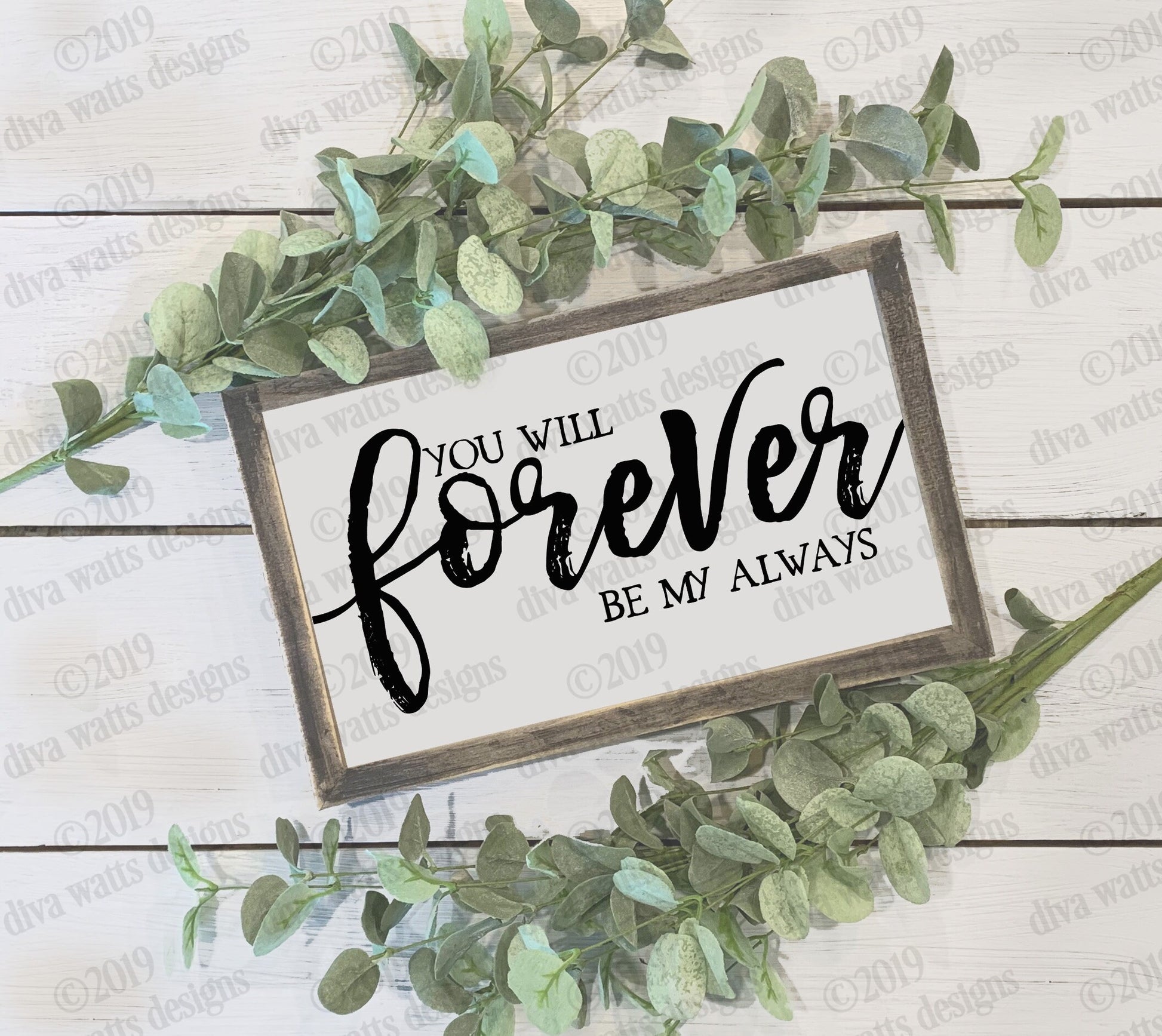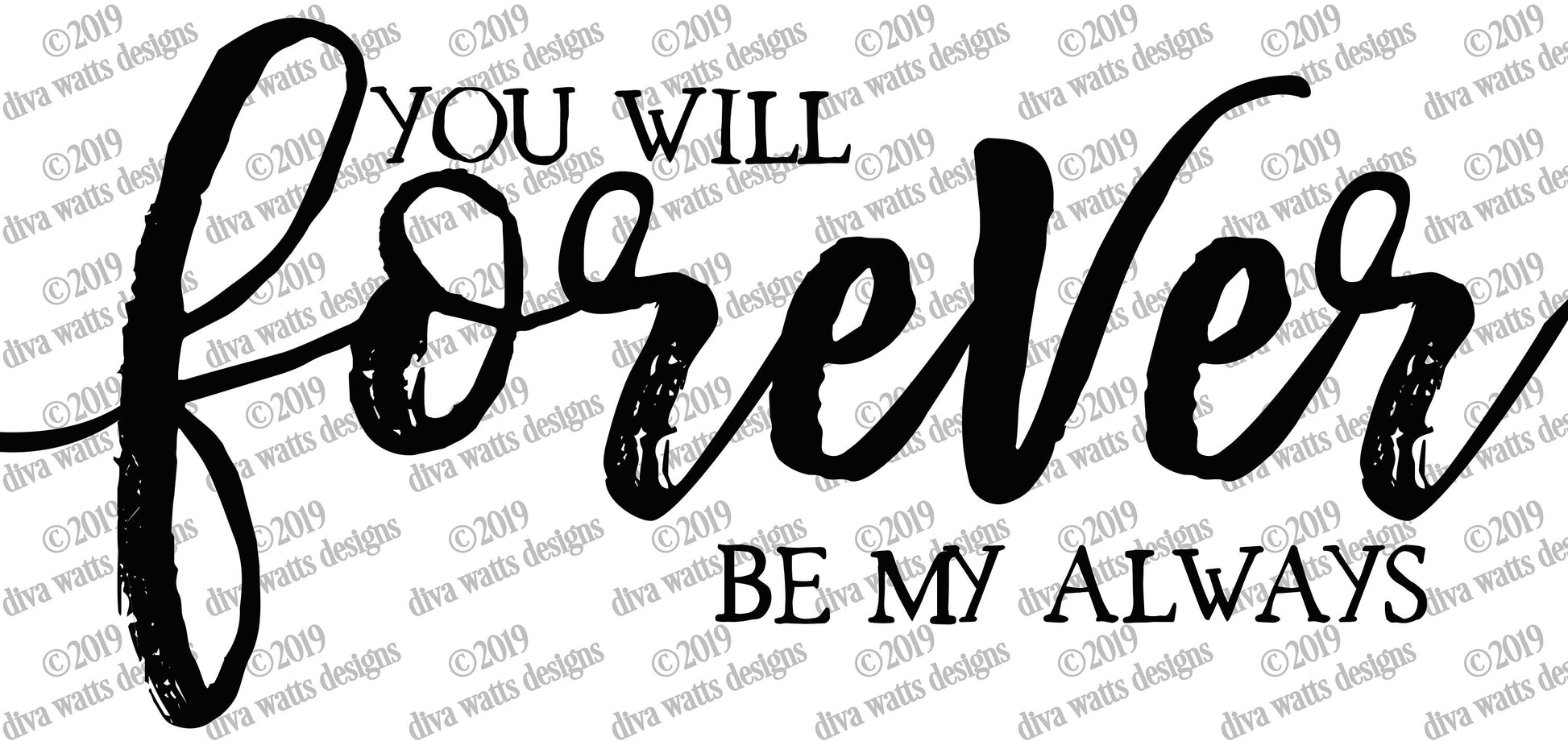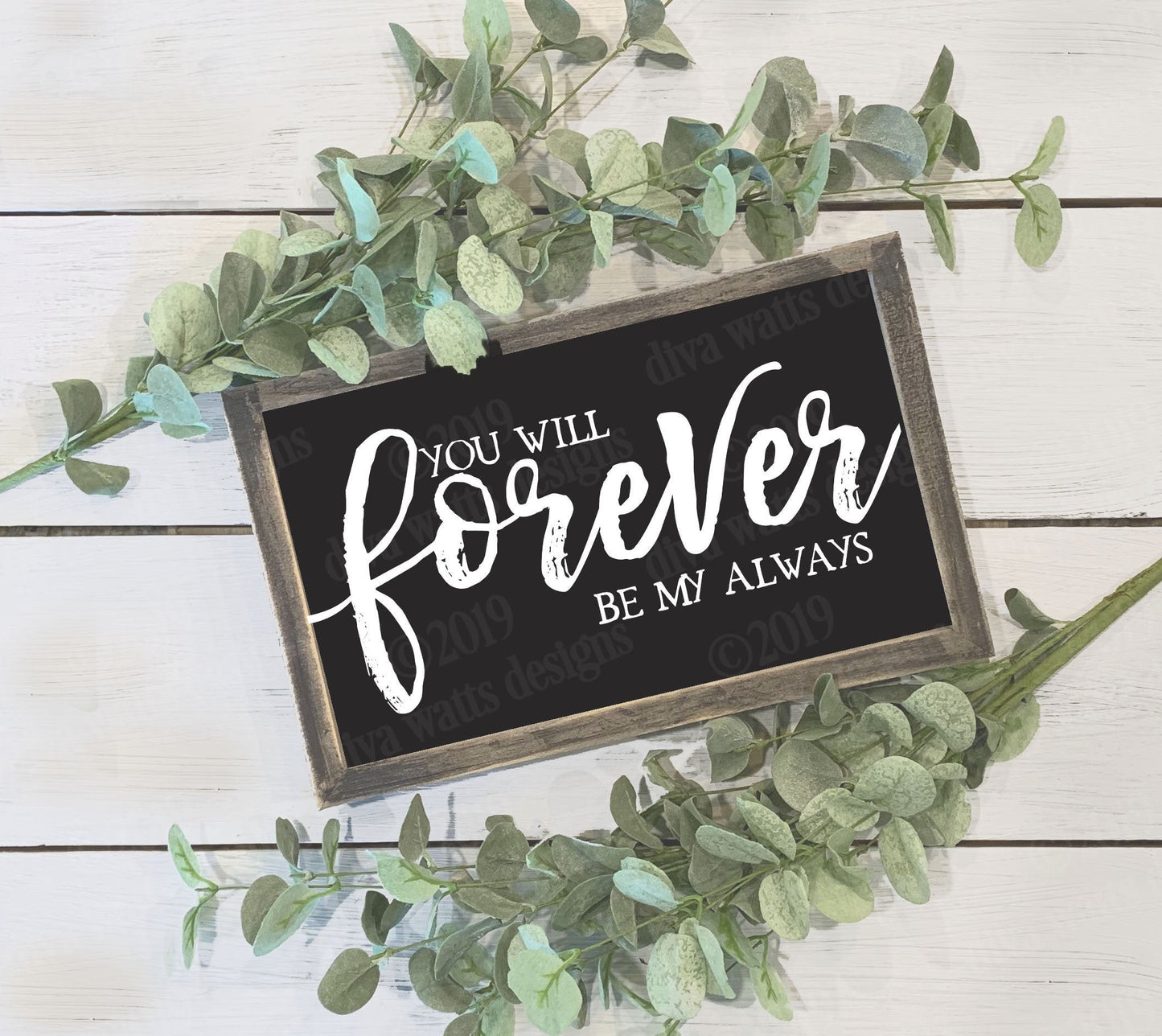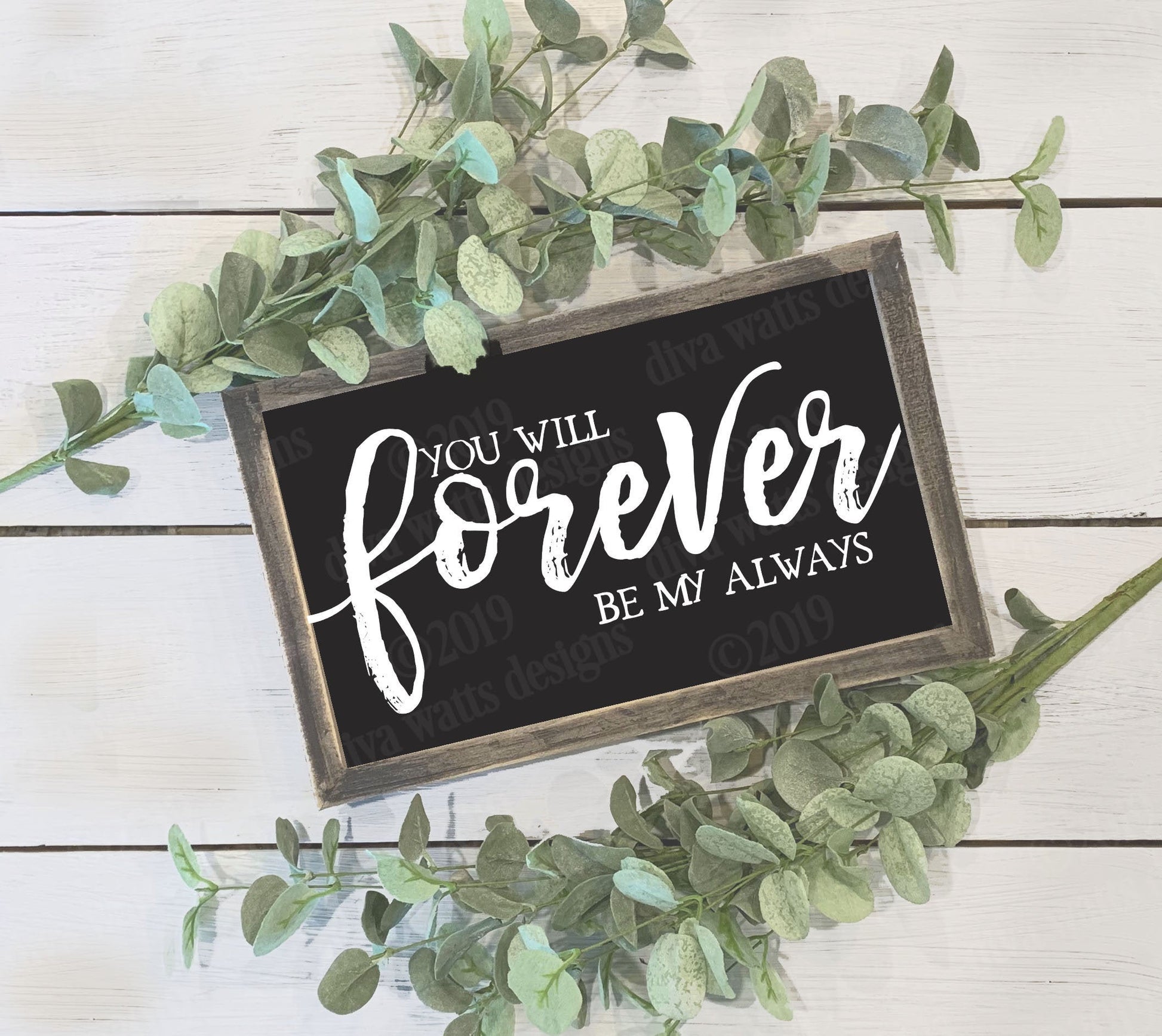
You Will Forever Be My Always Cutting File
The fonts I used are distressed and vintage style fonts which give a beautiful look to projects. You can make a sign, pillow and more with this file.